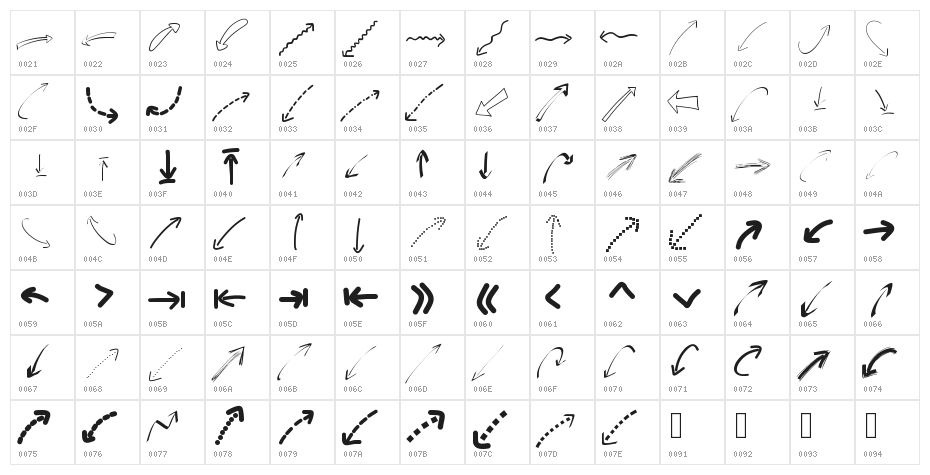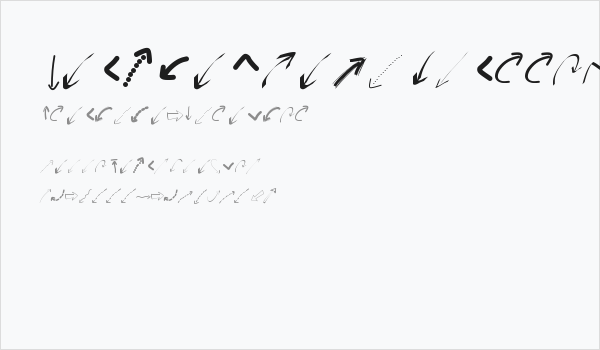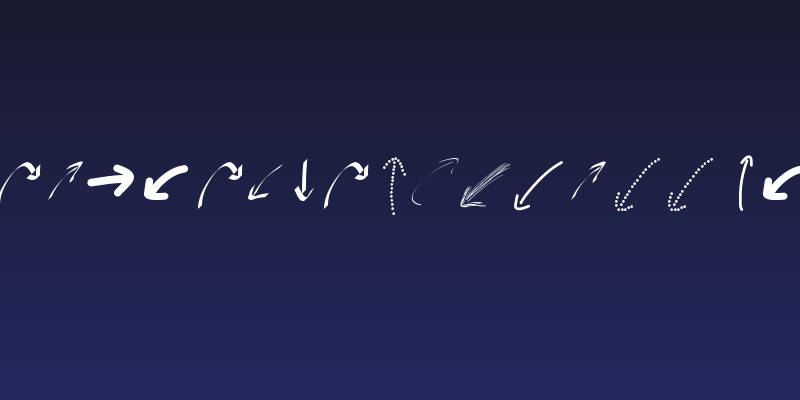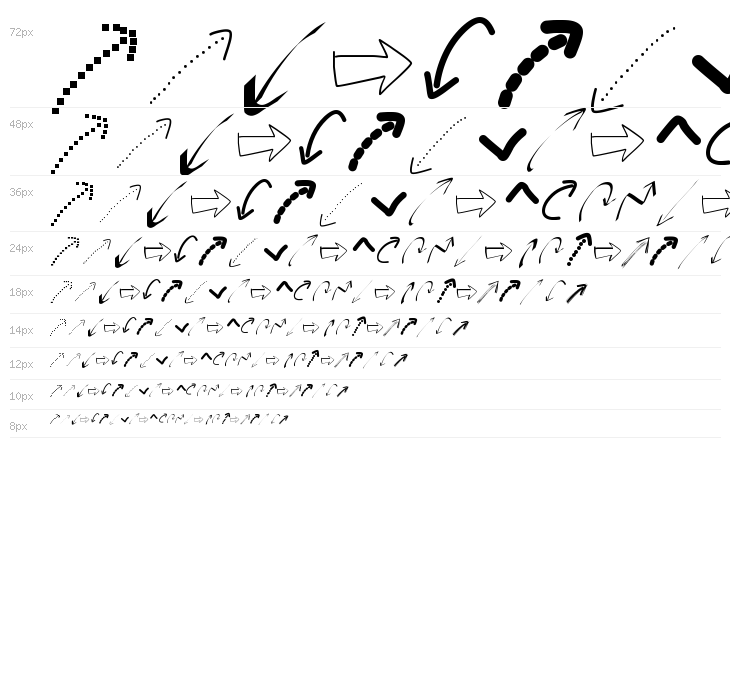
PeaxWebdesignarrows Font
PeaxWebdesignarrows Description
| Overall Style | Decorative, playful, informal |
| Use Case | Icons, highlights, annotations, visual guides |
| Proposed Projects | Infographics, presentations, web design, educational materials, creative posters, UI/UX mockups. |